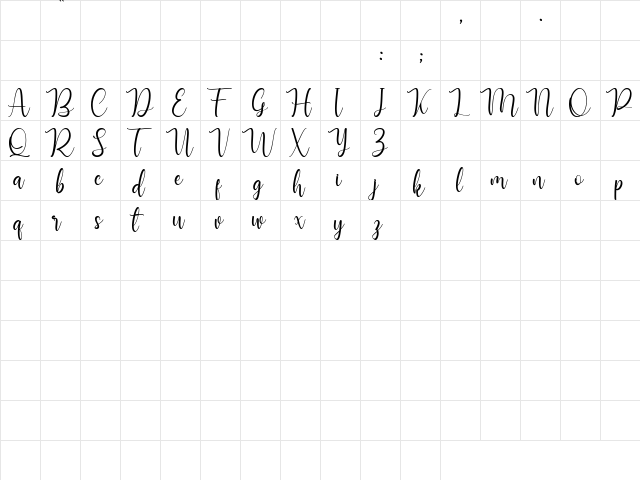
Manthine Personal Use Only Regular Font Preview
Manthine Personal Use Only Regular
Manthine Personal Use Only Regular Font Details
| Designer | Muhammad Faizal Said |
Design Context for Manthine Personal Use Only Typeface
Manthine Personal Use Only is a composed and adaptable typeface that performs quietly and consistently across a wide range of design contexts. Its slender proportions lend an understated elegance to any composition.